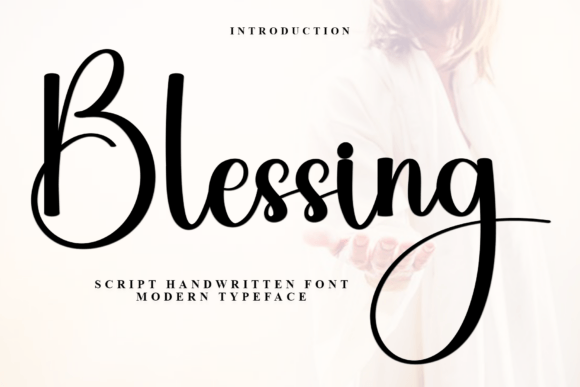
The Blessing Font: A Warm and Whimsical Companion for Your Designs
I’ll never forget the moment I stumbled upon the Blessing font while working on a wedding invitation project. My client wanted a design that felt personal, yet elegant, and I was struggling to find the perfect font to convey that sense of warmth and friendliness. That’s when I discovered Blessing, a casual handwritten font that instantly resonated with me. Its rounded, playful strokes gave off a relaxed and approachable vibe, and I knew right then that it was the perfect fit for my project.
As I started working with Blessing, I fell in love with its charming, hand-drawn aesthetic. Here are a few things that make this font stand out:
• ✨ Warm and inviting: Blessing exudes a sense of warmth and friendliness, making it perfect for personal projects, invitations, and social media graphics.
• ✅ Playful and whimsical: The font’s rounded strokes and casual feel add a delightful, whimsical touch to any design.
• ✨ Highly versatile: Blessing works beautifully for both digital and print projects, from social media graphics to wedding invitations and more.
Of course, no font is perfect, and Blessing has a few quirks to keep in mind:
• 🤔 Limited formal use: While Blessing is perfect for casual designs, it may not be the best choice for more formal projects, such as corporate branding or business reports.
• ⚠️ Some letter spacing issues: In certain situations, the letter spacing can get a bit wonky, especially when using all caps or longer sentences.
The Story Behind Blessing: A Designer’s Inspiration
Blessing was designed with the intention of creating a font that felt like a warm hug. The designer wanted to craft a font that would make readers feel like they’re reading a handwritten letter from a friend. With its rounded strokes and casual feel, Blessing is the perfect embodiment of that goal.
Q: What type of projects is Blessing best suited for?
A: Blessing is perfect for personal projects, invitations, social media graphics, and any design that requires a warm, friendly feel.
Q: Is Blessing a difficult font to read?
A: No, Blessing is generally easy to read, but its casual feel may make it less suitable for very long blocks of text or formal documents.